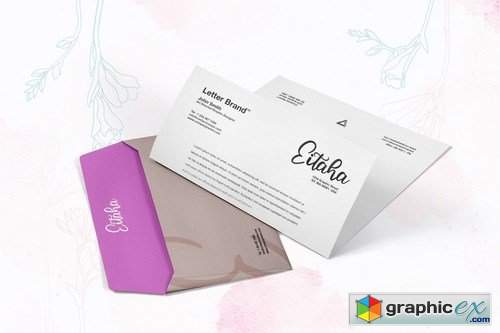
Thing ever Beauty Calligraphy
Thing ever | Beauty Calligraphy with a calligraphy style, So beautiful on invitation like greeting cards, branding materials, business cards, quotes, posters, and more!